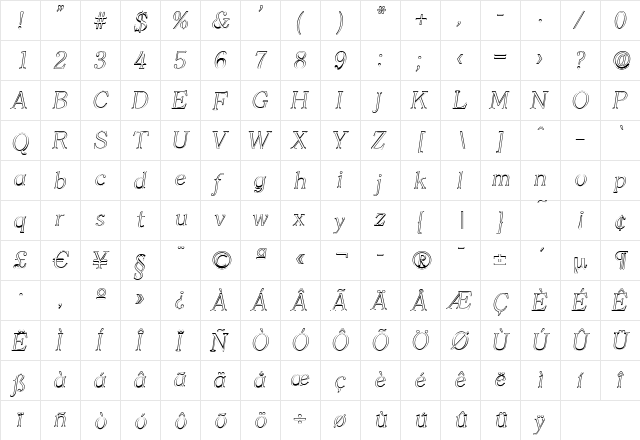
ChristianBeckerOutline-ExLight Italic Font Preview
Design Context for ChristianBeckerOutline-ExLight Typeface
ChristianBeckerOutline-ExLight brings ornamental detail and strong personality to headlines and identities, where visual impact matters more than quiet functionality. Its italic angle brings a sense of urgency and motion to the letterforms. The delicate stroke weight brings airiness and refinement to layouts.
Font Pairing: Pair with a clean neutral sans-serif for body copy to let ChristianBeckerOutline-ExLight's character lead without overwhelming the composition.
Pro Tip: Treat ChristianBeckerOutline-ExLight as the centrepiece of your typographic hierarchy. One strong heading set in a decorative face can carry an entire layout.